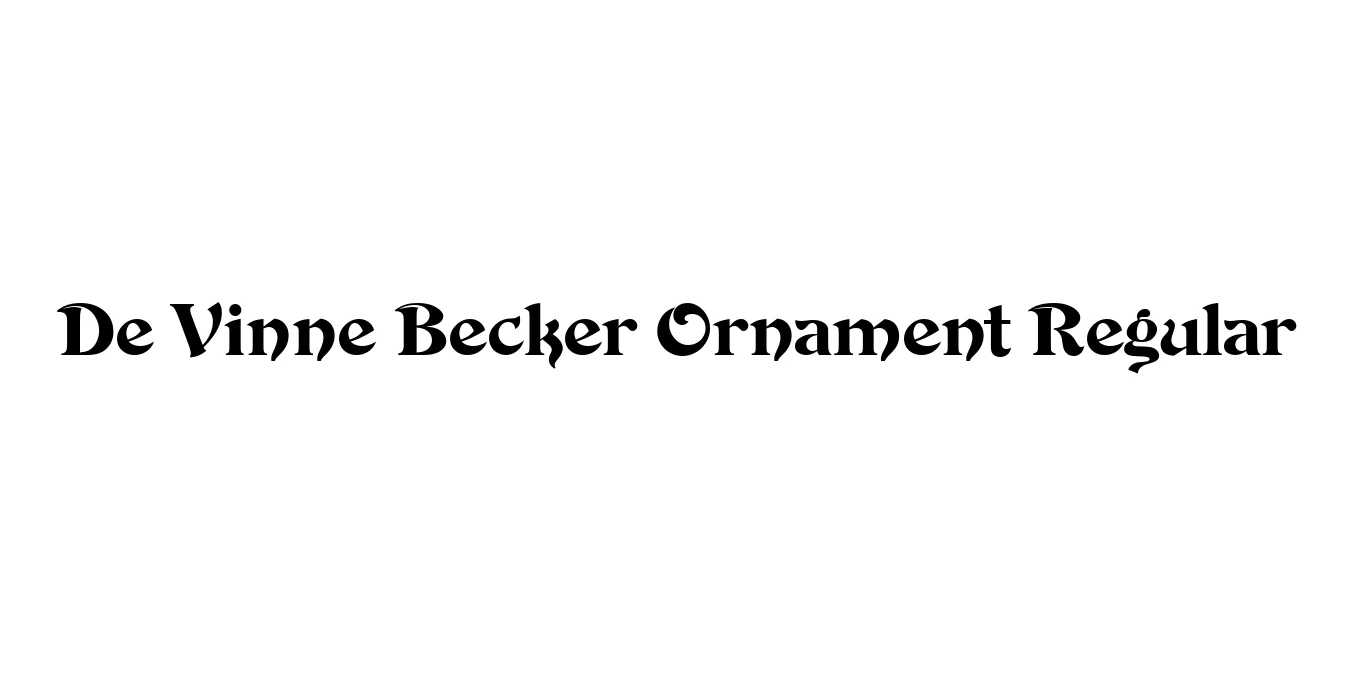
De Vinne Becker Ornament Regular
Designed by Ferdinand Becker
| Category | Decorative |
| Designer | Ferdinand Becker |
| Similar Fonts | Caslon Ornaments, ATF De Vinne, University Roman |
De Vinne Becker Ornament Regular is a classic decorative typeface that draws inspiration from the late 19th-century American typography movement. Named after the influential printer Theodore Low De Vinne and designer Ferdinand Becker, this font captures the essence of the Victorian era's ornamental style. It features intricate flourishes and antique motifs that were once staples in high-end publishing and artisanal print shops, reflecting a period where typography was viewed as a significant form of artistic expression.
Today, this font serves as a bridge between historical elegance and modern digital design. The Becker Ornament variant specifically focuses on the ornate details and decorative characters that complement the sturdy, legible structure of the original De Vinne face. It is ideal for designers looking to evoke a sense of heritage, nostalgia, or sophisticated craftsmanship in their projects, making it a timeless choice for specialized editorial work and vintage-themed branding.
De Vinne Becker Ornament Regular Best Uses
Perfect for vintage-style book covers and magazine mastheads.
Ideal for luxury liquor labels, boutique logos, and heritage brands.
Adds a touch of historical elegance to wedding invites and formal certificates.
Excellent for creating borders and decorative frames in artistic layouts.